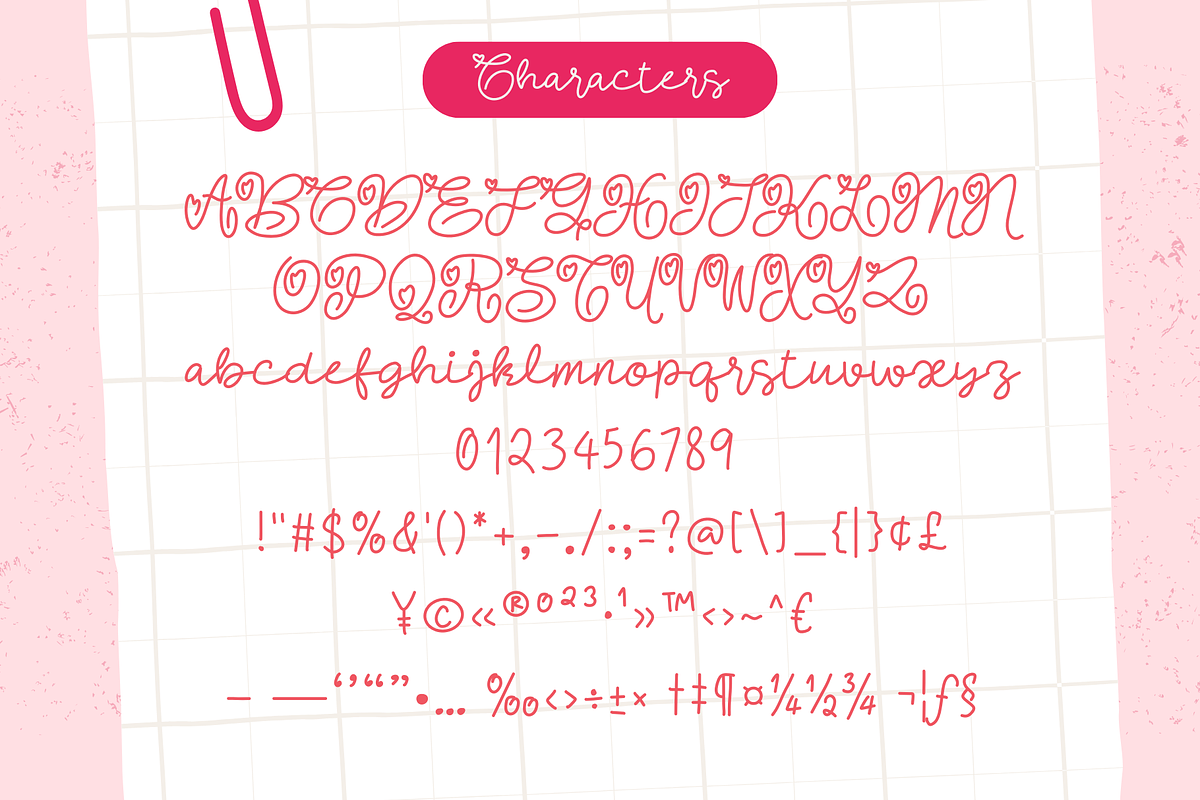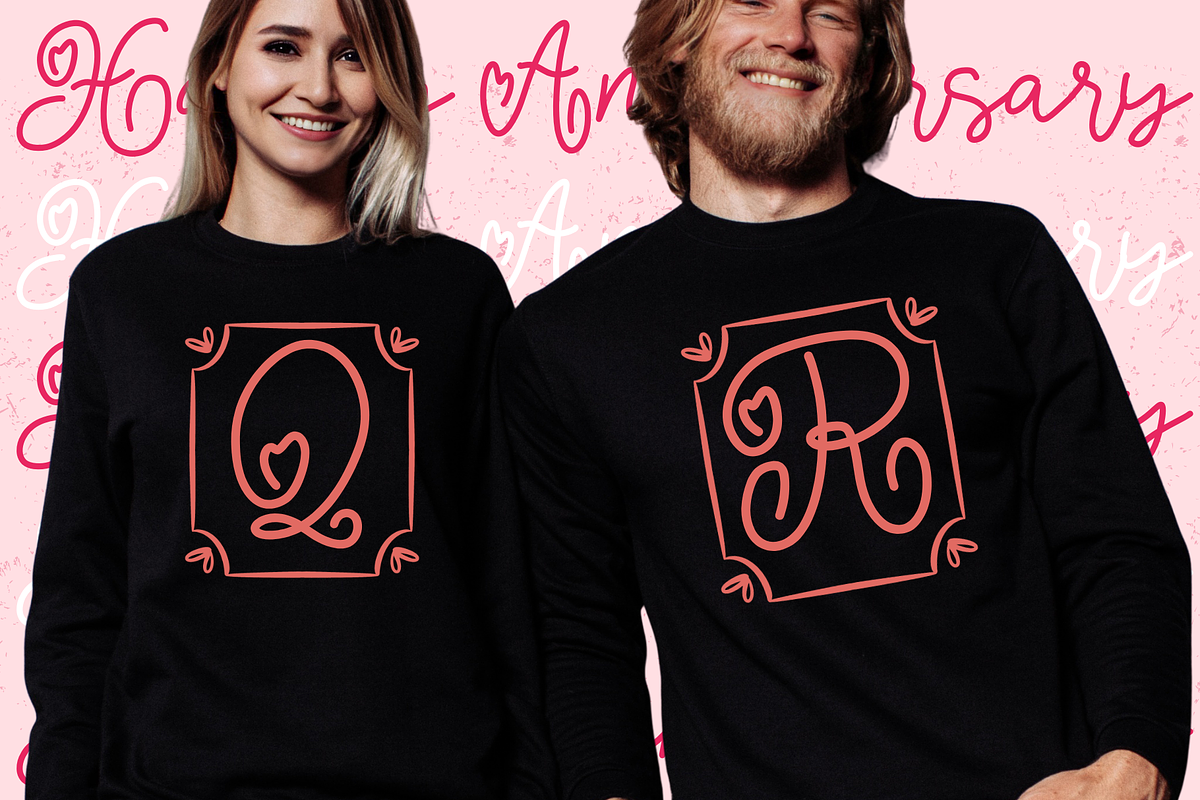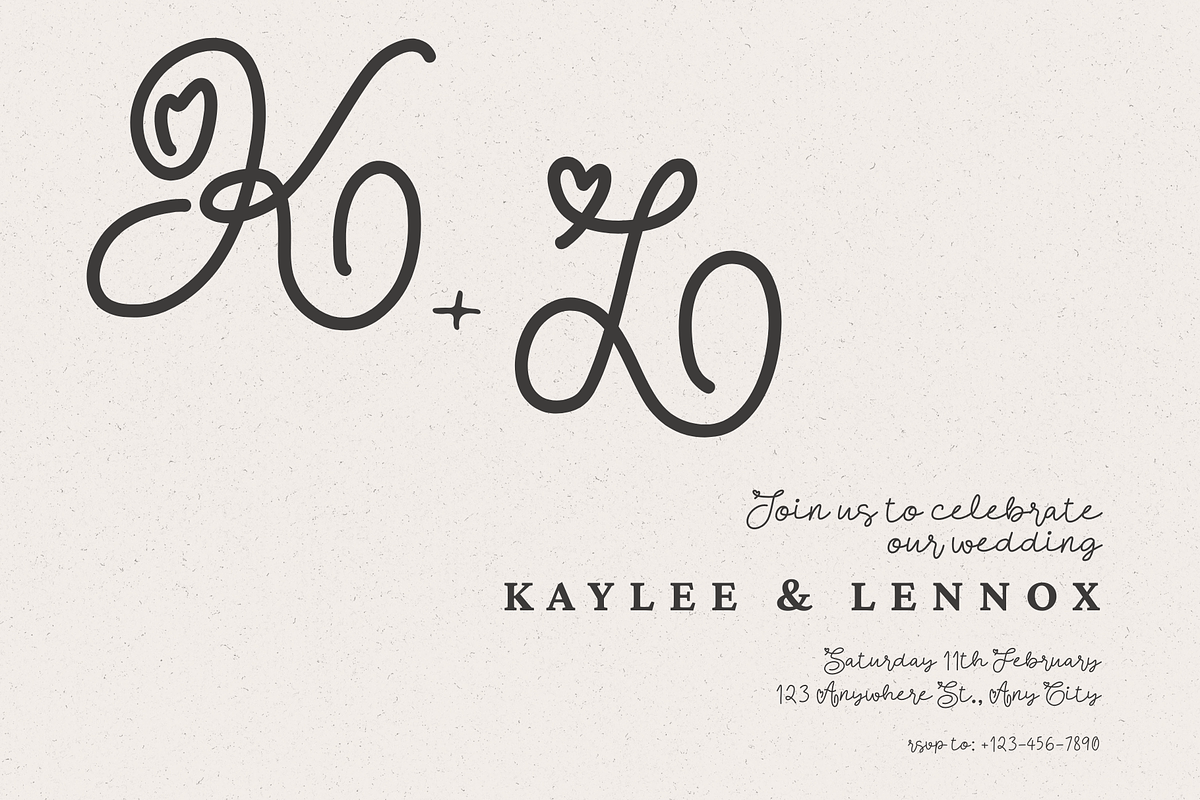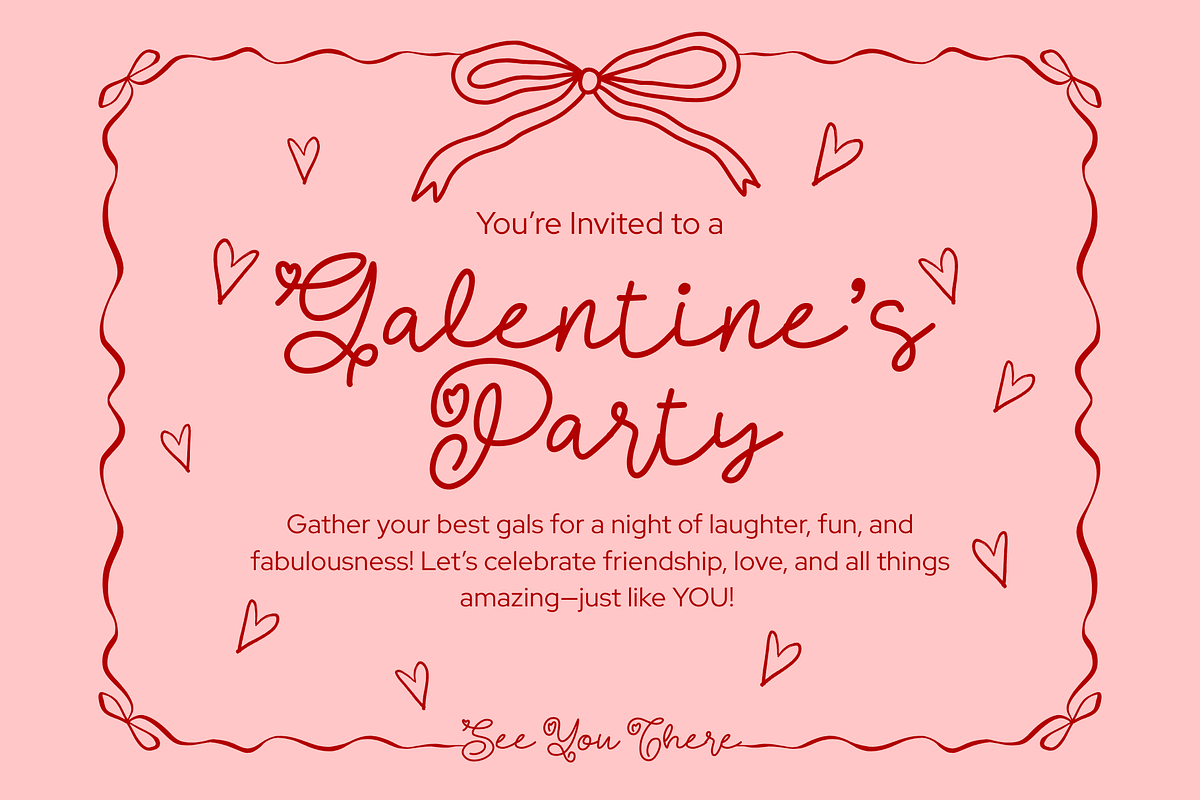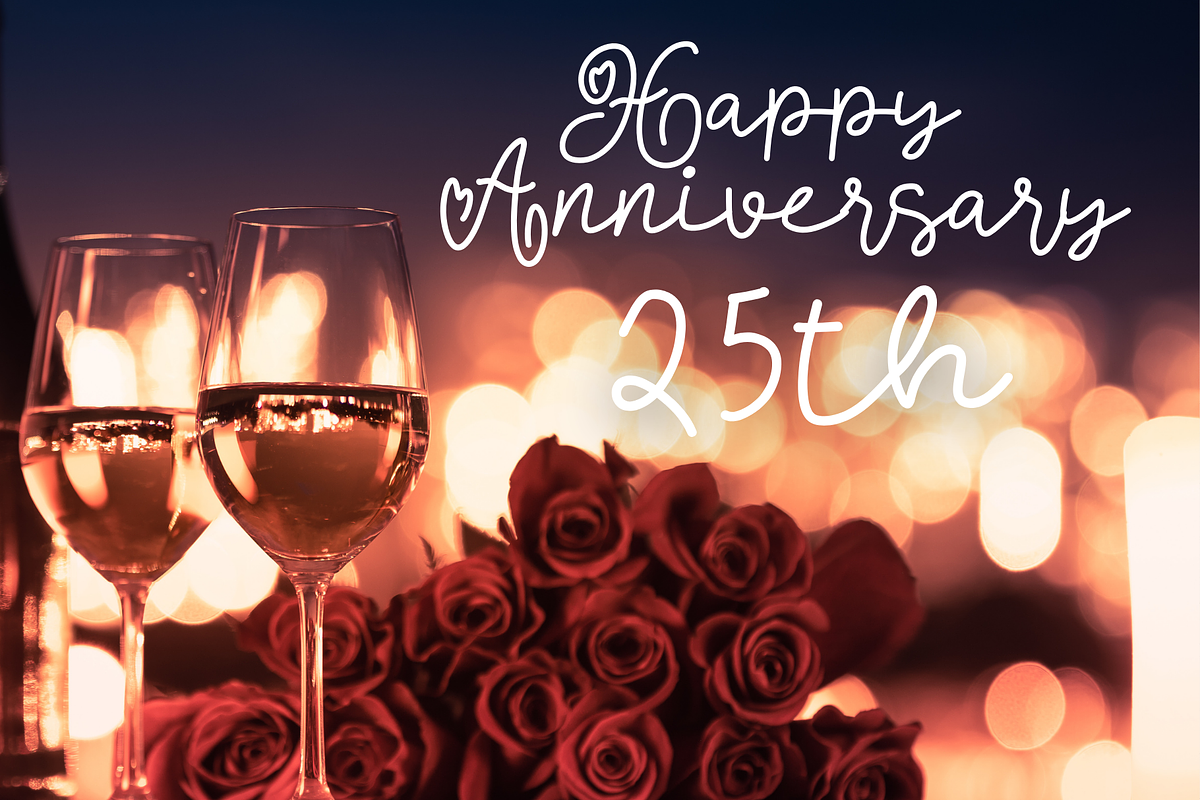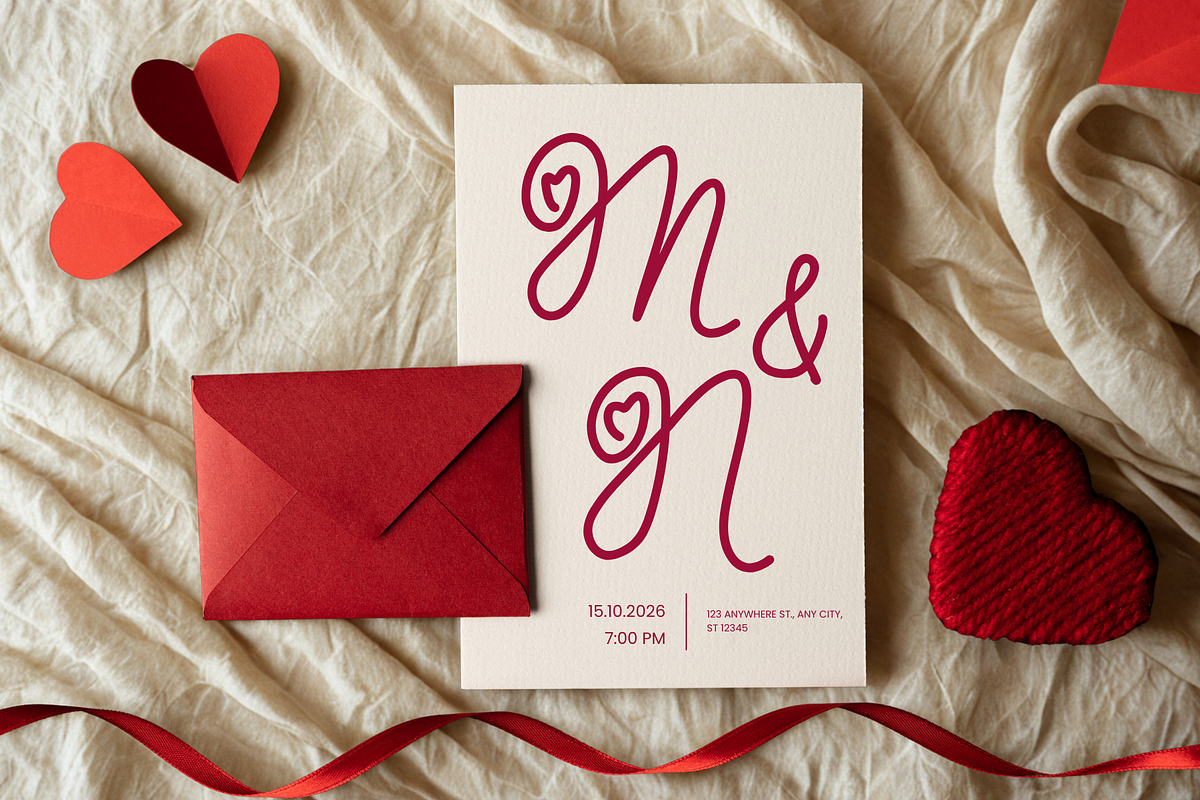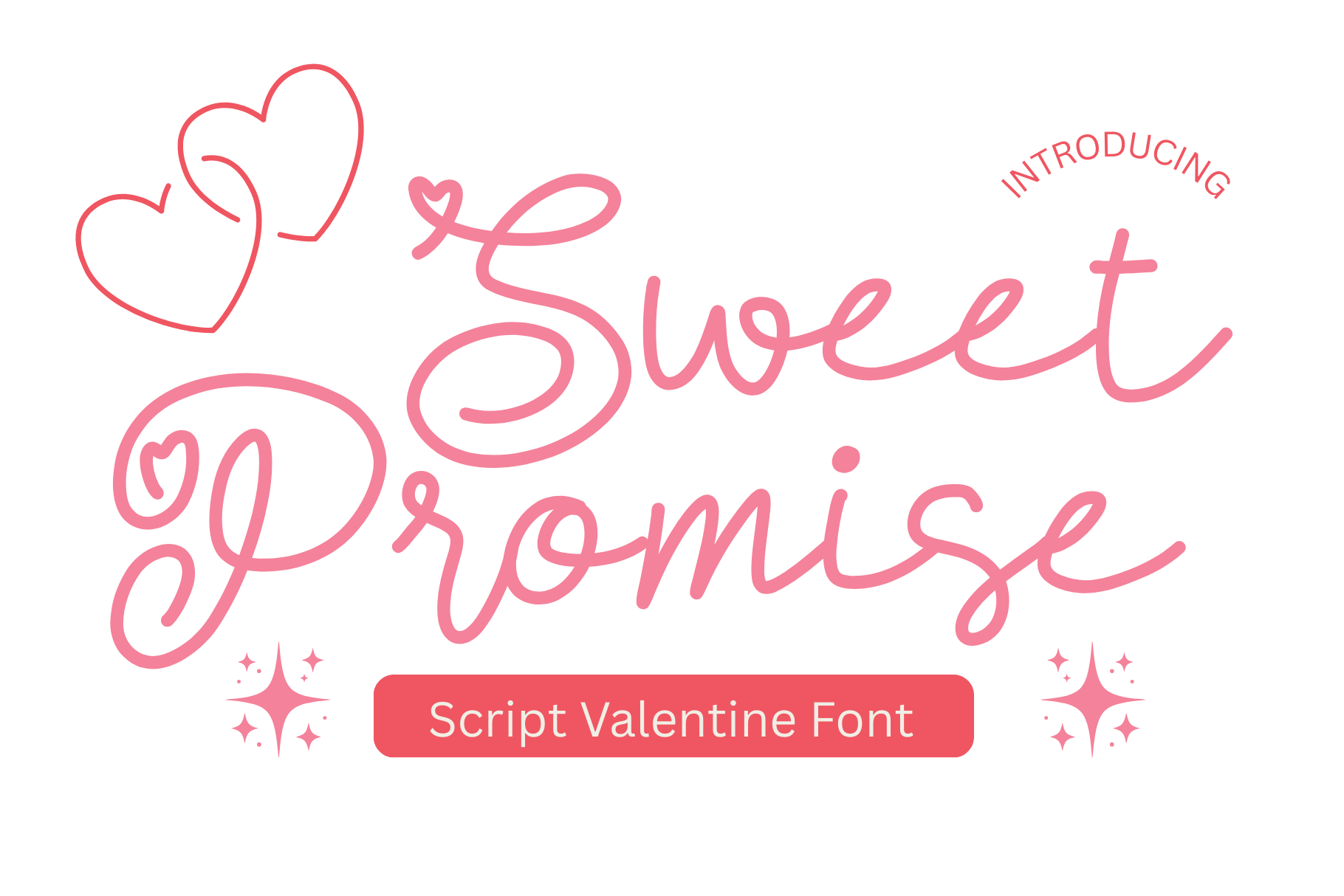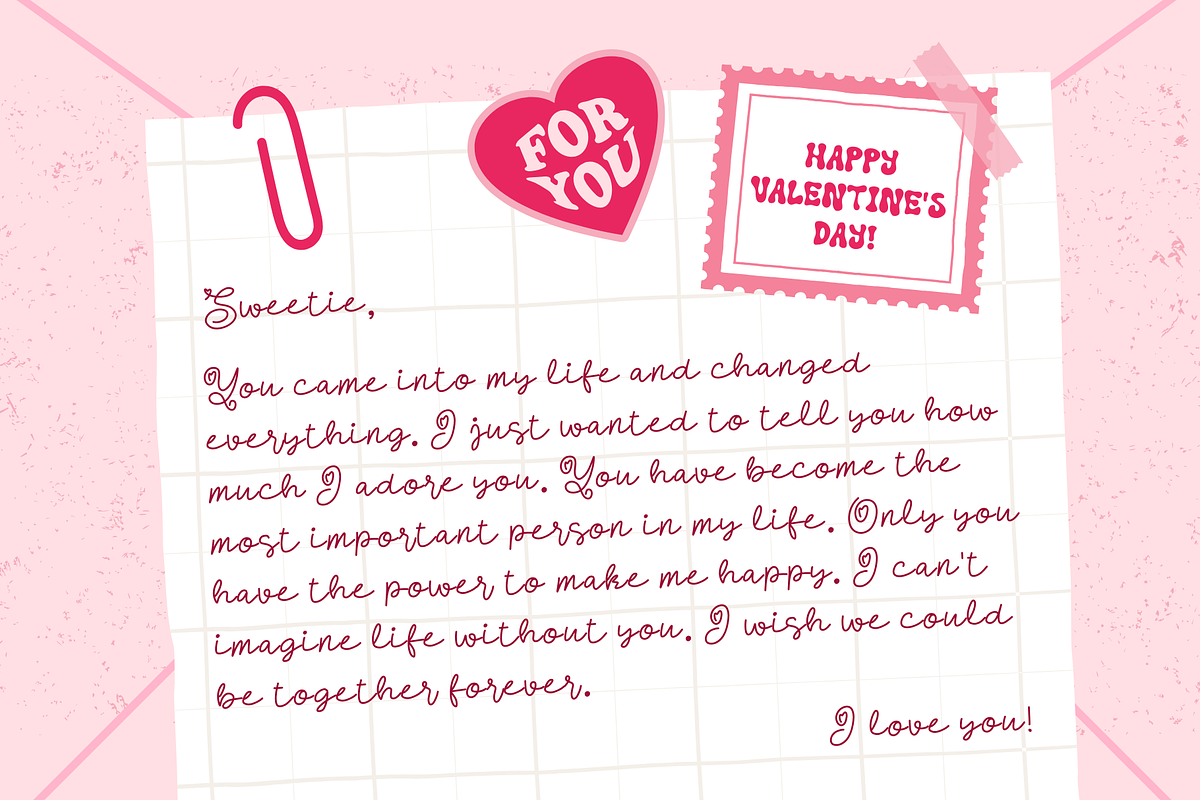
Sweet Promise is a Script font
Sweet Promise is a Valentine’s Day Script font. It embodies playfulness and authenticity and is the perfect choice for all your favorite projects, or even for blog posts, logos, branding, ads, invitations, greeting cards, planners, photo albums, decorations, and much more. Add it to any of your designs, and enjoy the results!